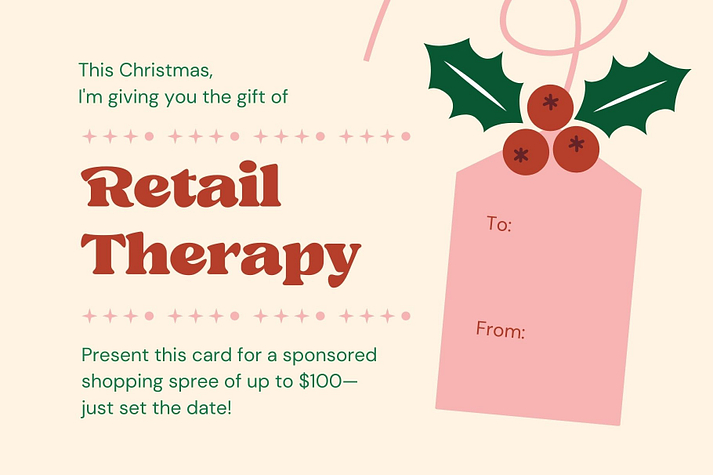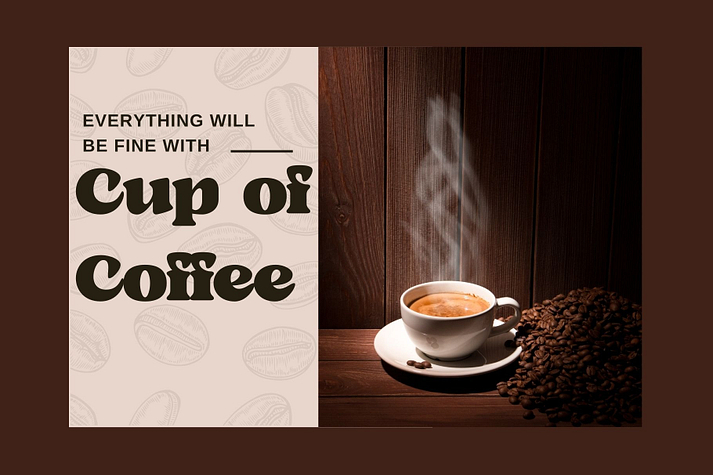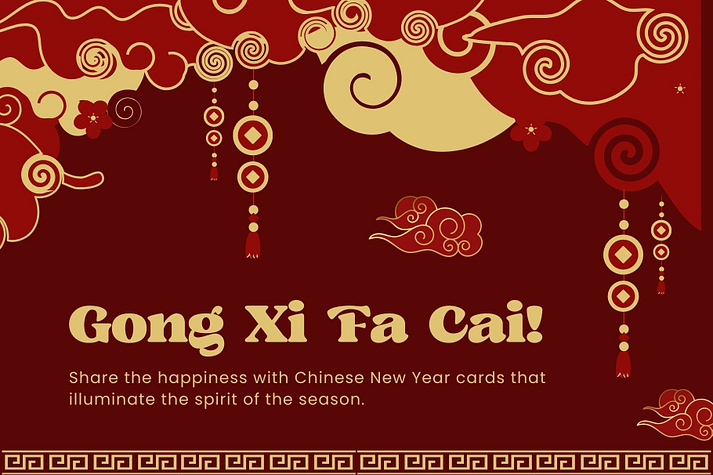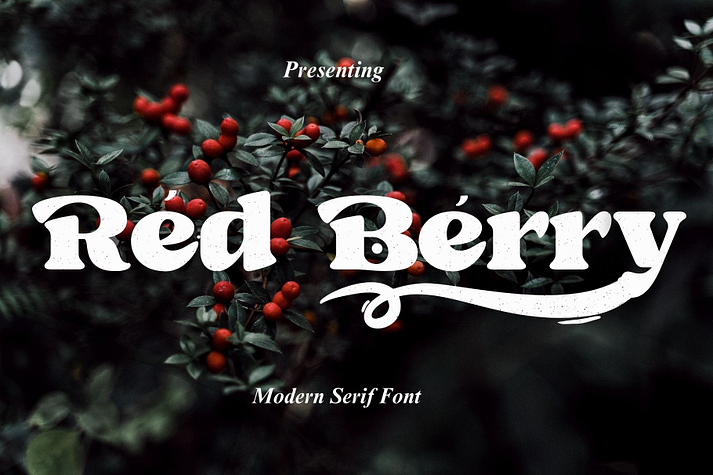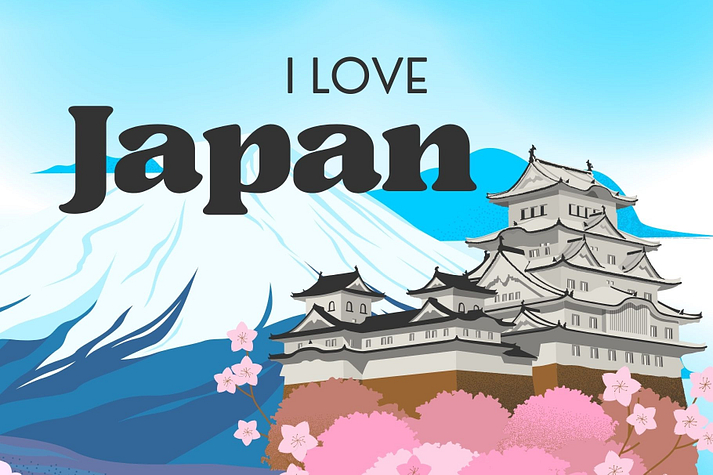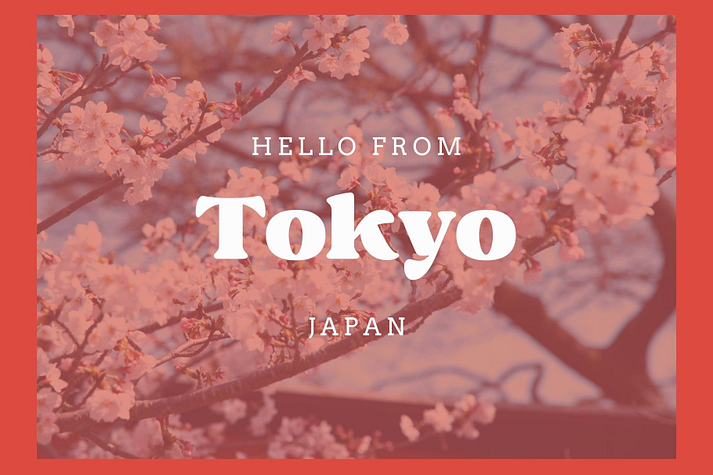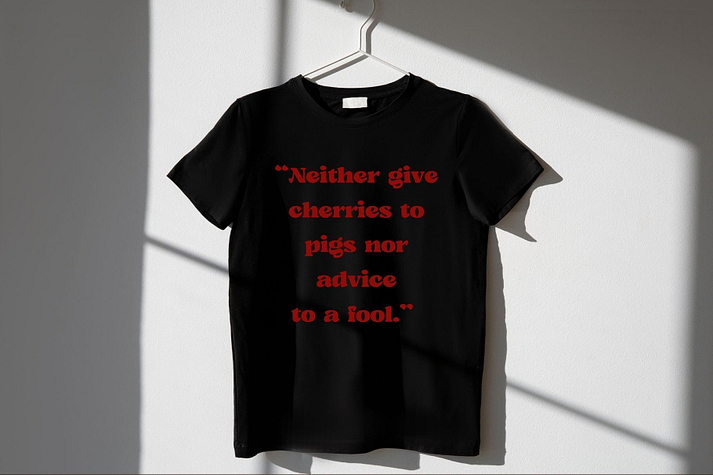
Red Berry
Red Berry is a retro and serif font family published by Aditastudios.
Red Berry, a captivating serif font with a retro-modern twist. Its rounded serif and sleek lines evoke a sense of timeless elegance with a contemporary edge. Perfect for branding, packaging, logos, corporate designs, and more, Red Berry adds a touch of sophistication to any project. With its modern, minimalist aesthetic and luxurious vibe, Red Berry is the perfect choice for those seeking to make a bold statement with style.